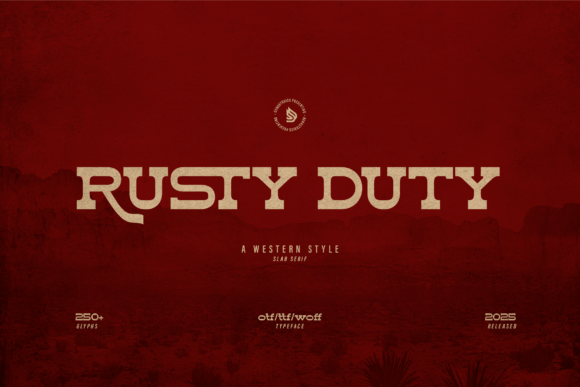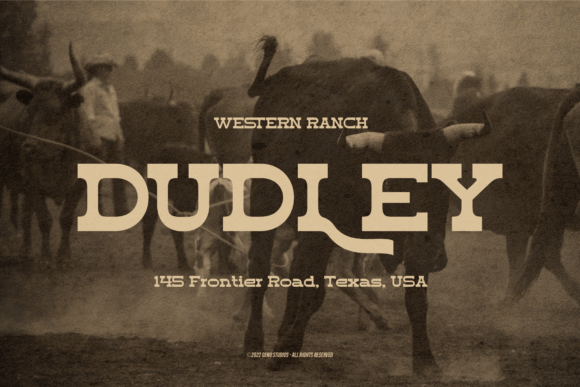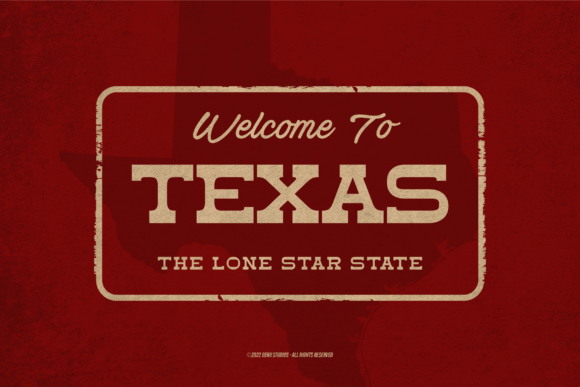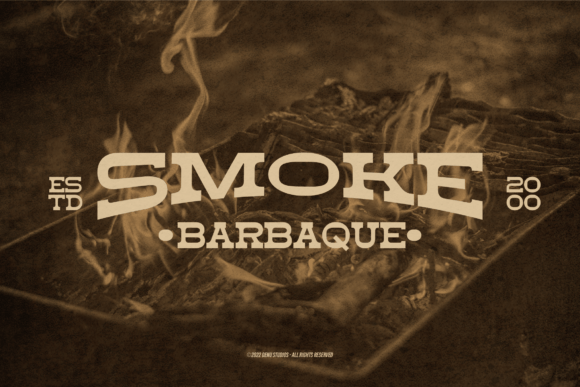
Rusty Duty Font: Bold Western Slab Serif for Rustic Branding
About the Rusty Duty Font
The Rusty Duty Font is here to transform your projects with its distinctive character and style. Rusty Duty is a rugged slab serif font with a bold Western spirit. Inspired by vintage Americana, this typeface brings a strong, masculine edge to headlines, posters, badges, and branding projects. Its sturdy characters and distinctive serifs evoke the grit of the old frontier, perfect for rustic and adventure-themed designs.
Rusty Duty excels in large-scale applications such as headlines, posters, and branding where its bold presence commands attention. It’s ideal for projects emphasizing themes of adventure, the outdoors, or Americana. Avoid using it for body text or UI elements; its strong character weight is unsuitable for extended reading.
Its core personality is undeniably bold and masculine, conveying strength and a sense of heritage. Brands seeking to project a rugged, trustworthy image will find Rusty Duty a powerful asset.
Rusty Duty Font Usage Examples
Rusty Duty Font Example